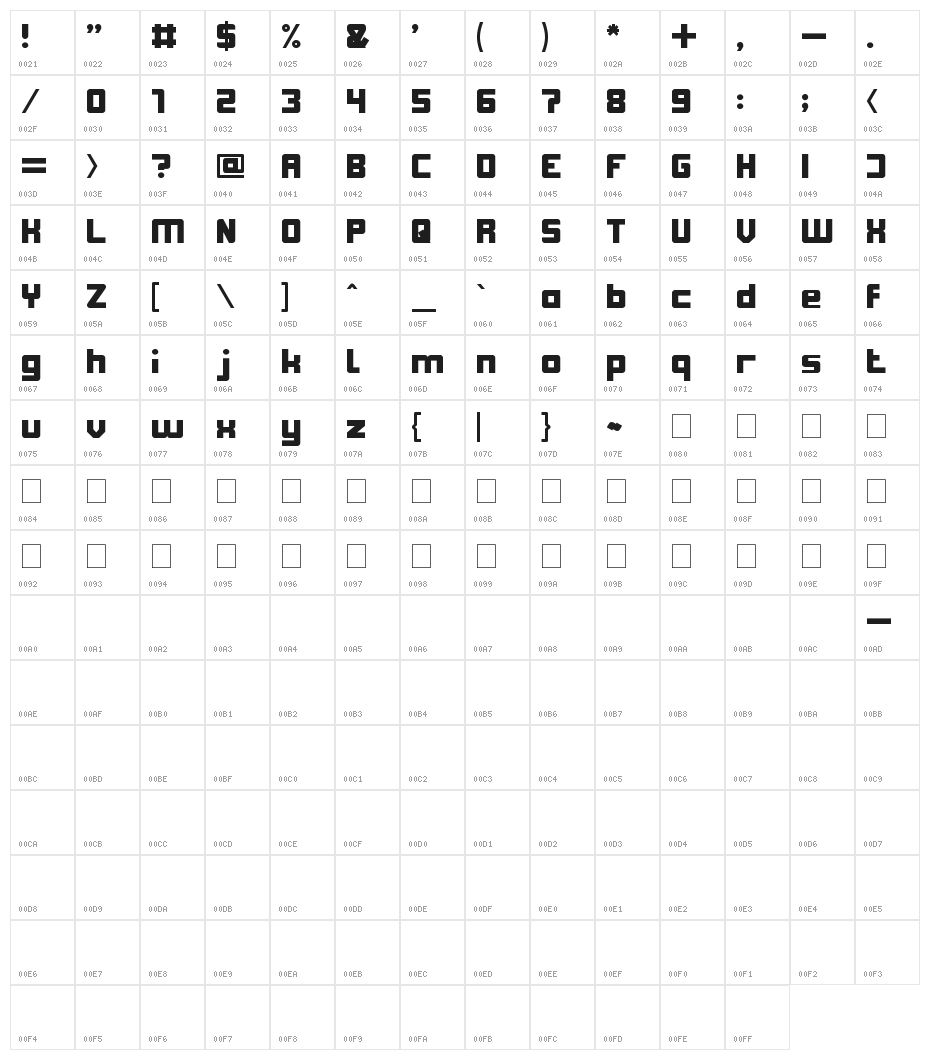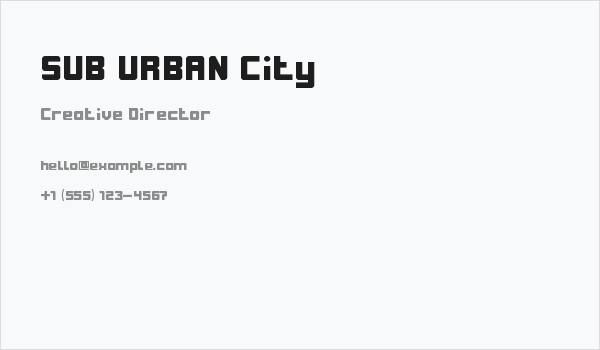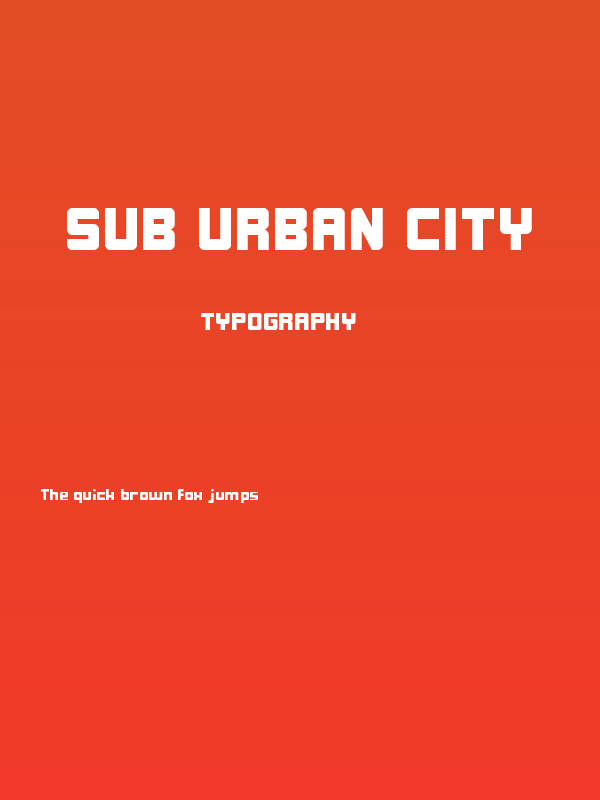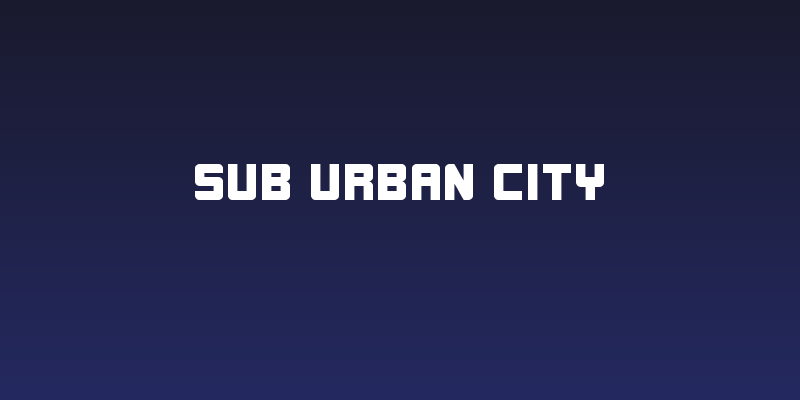
SUB URBAN City Font
SUB URBAN City Description
This font features a bold, geometric style with a strong presence. The characters are blocky and angular, with a uniform thickness that gives them a sturdy and modern appearance. The uppercase letters are particularly striking, with sharp edges and a consistent height that creates a cohesive look. The lowercase letters maintain the same boldness, with some characters like 'g' and 'y' having unique, stylized tails. The numerals are equally robust, ensuring readability and impact. Special characters are designed to match the overall aesthetic, making this font versatile for various applications.
| Proposed Projects | Ideal for urban-themed designs, posters, logos, and branding materials that require a strong, modern look. |